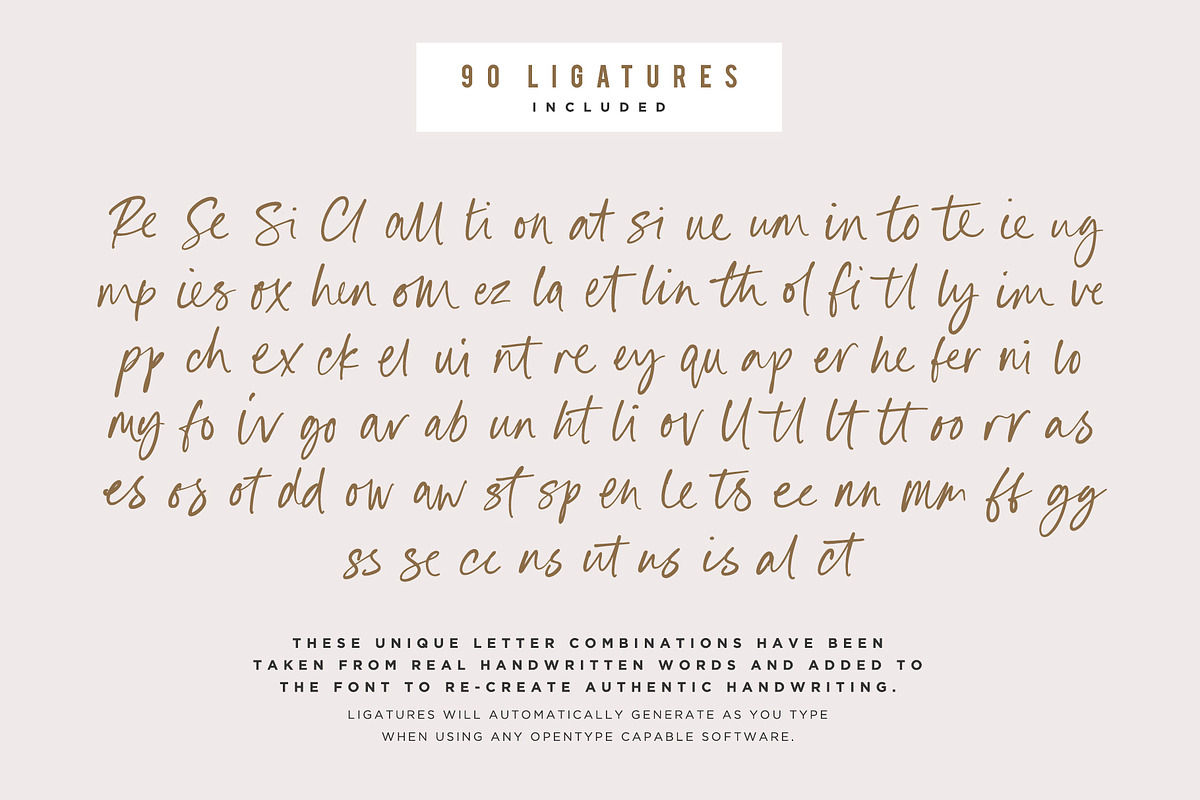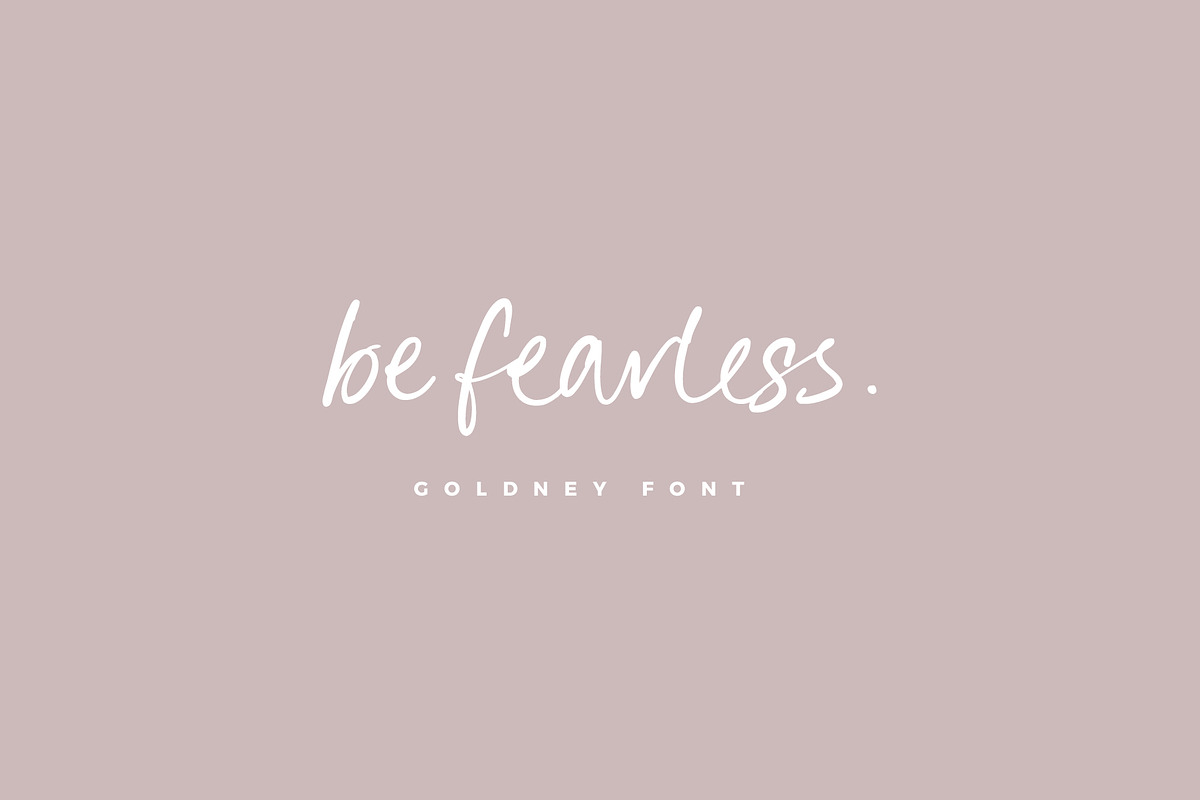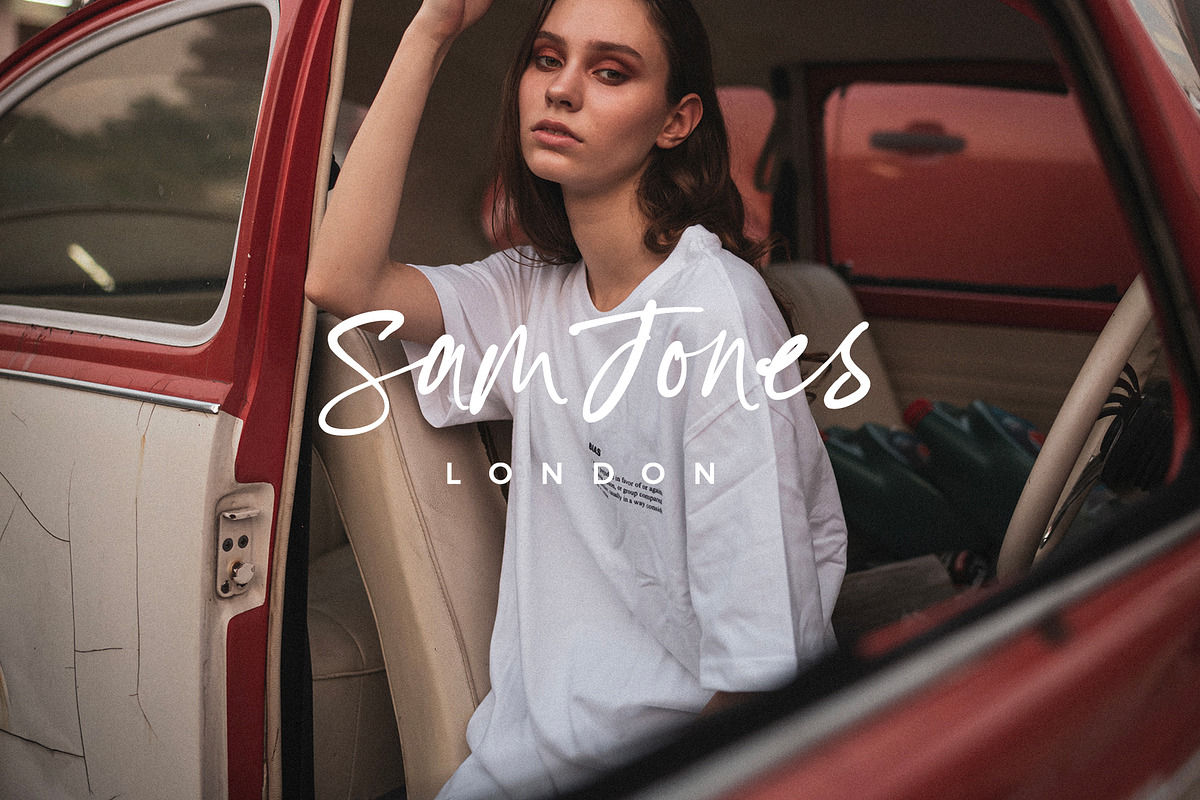
Goldney Font
Goldney is a modern handwriting font. Goldney produces incredibly realistic letterforms and free-flowing sentences – this was achieved by writing out hundreds of individual words, then hand-picking the most natural looking letters.
Also hand-picked was a whopping 90 Ligatures – these unique letter combinations give even more authenticity to each word layout. It’s hugely versatile and the perfect choice for genuine handwritten logos & branding, advertisement text, quotes, headers and product packaging.